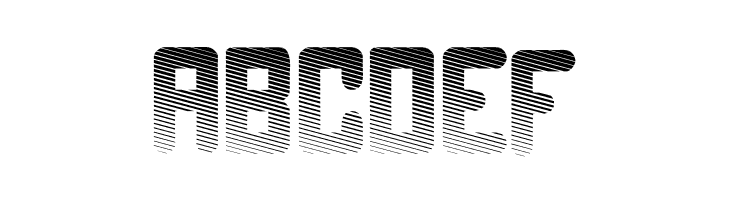
BabaluGradient Font
BabaluGradient Description
This font features a unique striped pattern that gives it a dynamic and playful appearance. The characters are bold and have a decorative flair, with each letter showcasing a series of horizontal lines that create a gradient effect. The uppercase letters are robust and commanding, while the lowercase letters maintain a consistent style, adding a touch of elegance. The numerals and special characters follow the same design principle, ensuring uniformity across all elements. This font is ideal for projects that require a bold statement and a touch of creativity.
| Proposed Projects | Ideal for posters, branding, and creative design projects that require a striking visual impact. |